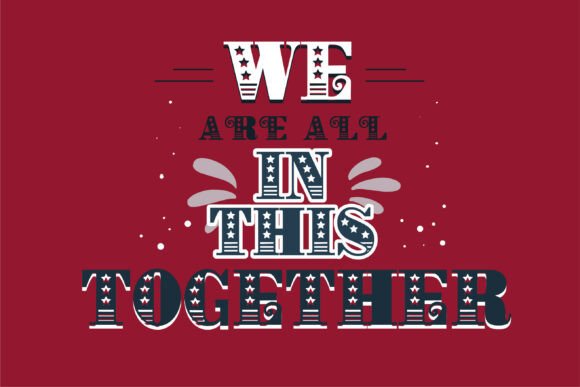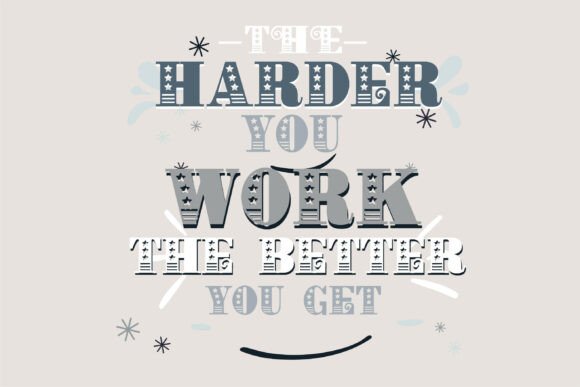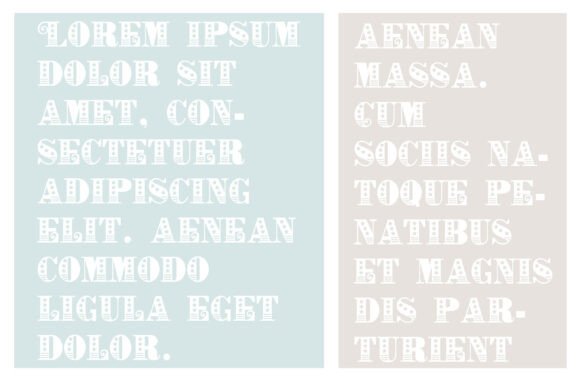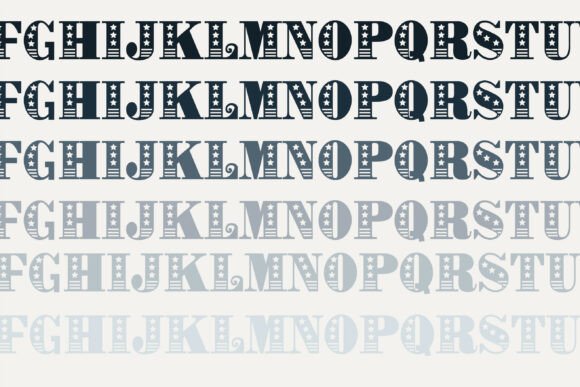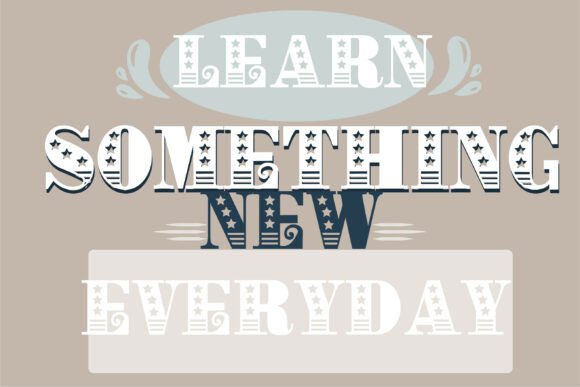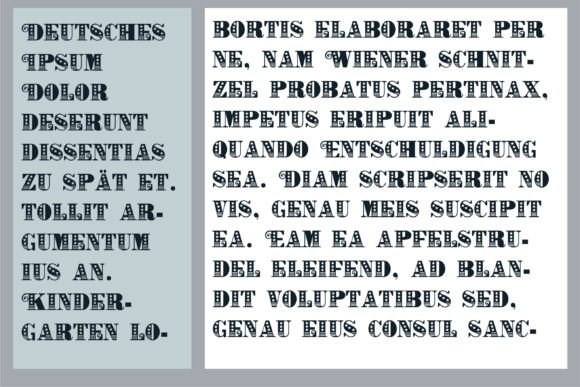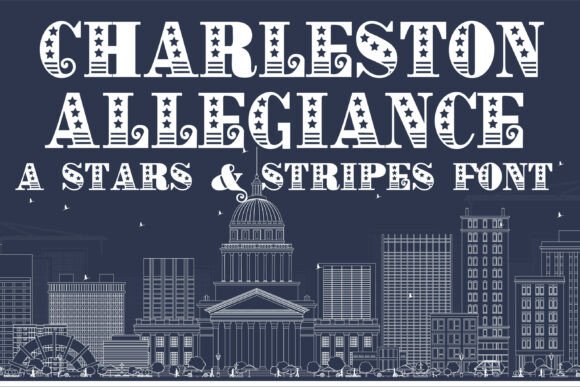
Introducing Charleston Allegiance Font: Embodying Patriotism and Elegance
Are you looking for a font that exudes a sense of prestige, heritage, and pride? Look no further than Charleston Allegiance, a stunning patriotic display font designed to make a lasting impact on your seasonal layouts. This magnificent typeface boasts a bold, traditional slab-serif structure, making it perfect for headlines, titles, and statements that demand attention.
A Unique Blend of Strength and Elegance
Charleston Allegiance’s distinctive design features heavy stems split-filled with alternating columns of five-point stars and clean horizontal stripes, creating a striking visual effect that commands respect. The addition of elegant calligraphic terminal curls on select capitals adds a touch of sophistication and Southern hospitality, balancing the font’s architectural weight with a dash of refinement.
Perfect for Patriotic and Heritage Projects
Charleston Allegiance is an exceptional creative asset for designers and crafters working on patriotic city celebration banners, regional parade flyers, official veteran honors templates, historic political announcements, and classic t-shirt graphic layouts. Its high-contrast design makes it an outstanding headline centerpiece over solid backdrops or intricate skyline illustrations, allowing your text to take center stage with pride.
Key Features of Charleston Allegiance Font
• Bold, traditional slab-serif structure: Provides a sturdy foundation for impactful headlines and titles
• Alternating columns of five-point stars and clean horizontal stripes: Adds a touch of patriotism and visual interest
• Elegant calligraphic terminal curls on select capitals: Balances the font’s weight with a dash of sophistication
• High-contrast design: Makes it perfect for use over solid backdrops or intricate illustrations
Applications for Charleston Allegiance Font
Charleston Allegiance is an incredibly versatile font, suitable for a wide range of projects, including:
• Patriotic city celebration banners: Create eye-catching headlines that showcase your city’s pride
• Regional parade flyers: Announce your event with a bold, attention-grabbing title
• Official veteran honors templates: Pay tribute to those who have served with a dignified and respectful design
• Historic political announcements: Make a statement with a font that exudes tradition and authority
• Classic t-shirt graphic layouts: Add a touch of patriotism and style to your apparel designs
Give Your Text a Proud, Monumental Posture
With Charleston Allegiance, you can give your text a proud, monumental posture that speaks fluent freedom. This magnificent font is engineered to make a lasting impact, allowing you to create stunning headlines, titles, and statements that demand attention. Whether you’re working on a patriotic project or simply want to add a touch of elegance to your design, Charleston Allegiance is the perfect choice.
In conclusion, Charleston Allegiance is a truly exceptional font that embodies the spirit of patriotism, heritage, and pride. Its unique blend of strength and elegance makes it perfect for a wide range of projects, from patriotic city celebration banners to classic t-shirt graphic layouts. With its high-contrast design and elegant calligraphic terminal curls, Charleston Allegiance is sure to make a lasting impact on your audience. So why wait? Command an undeniable sense of prestige, heritage, and pride with Charleston Allegiance font today!